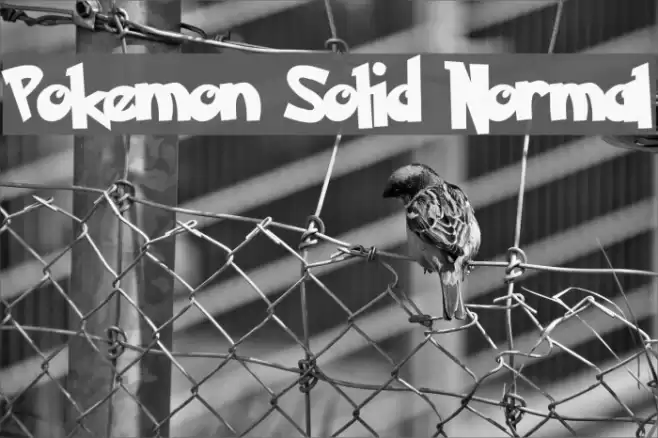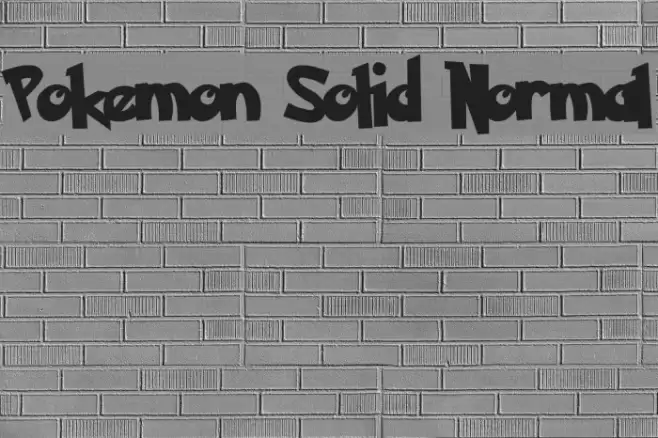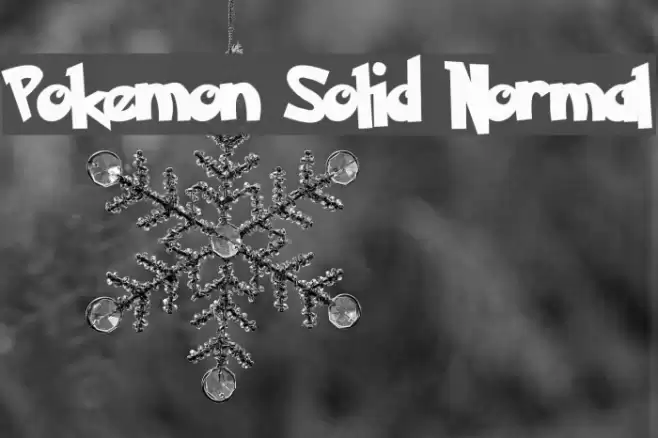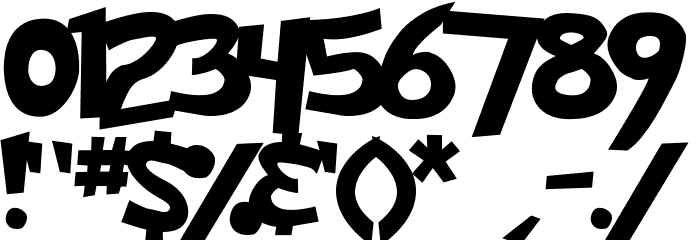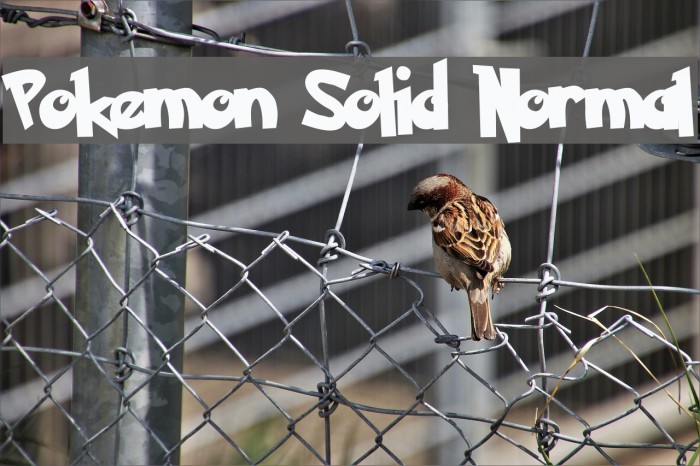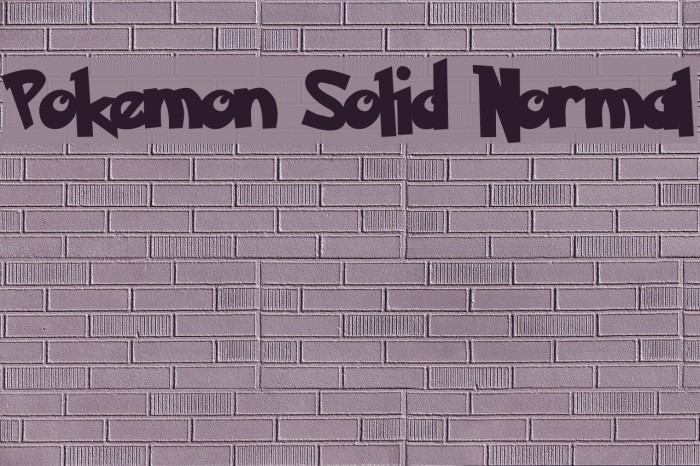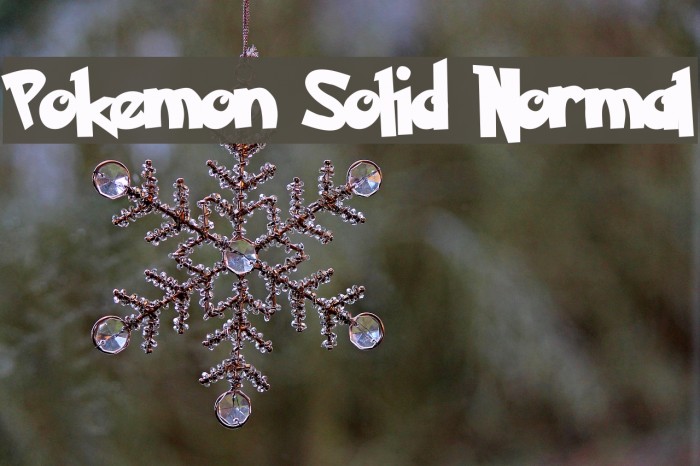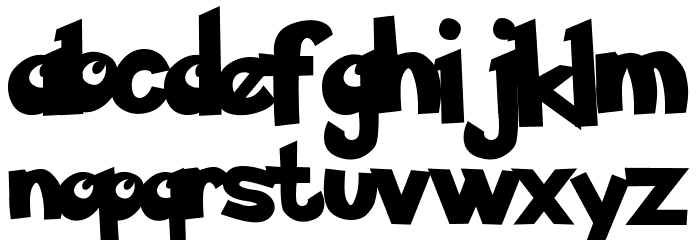
Pokemon Solid Normal Font
Pokemon Solid Normal Description
This font features bold, playful characters with a strong presence, making it ideal for attention-grabbing designs. The letters are thick and solid, with a slightly irregular and whimsical style that adds a sense of fun and energy. The uppercase and lowercase letters maintain a consistent weight, contributing to a cohesive look. The numbers and special characters follow the same bold and dynamic design, ensuring uniformity across all text elements. This font is perfect for projects that require a lively and engaging aesthetic.
A bold, playful font with a whimsical and energetic style from Cartoon fonts.
- Font: Pokemon Solid Normal
- Proposed Projects: Ideal for children's books, playful branding, video game graphics, and eye-catching posters.
- Overall Style: Playful, Energetic, Whimsical